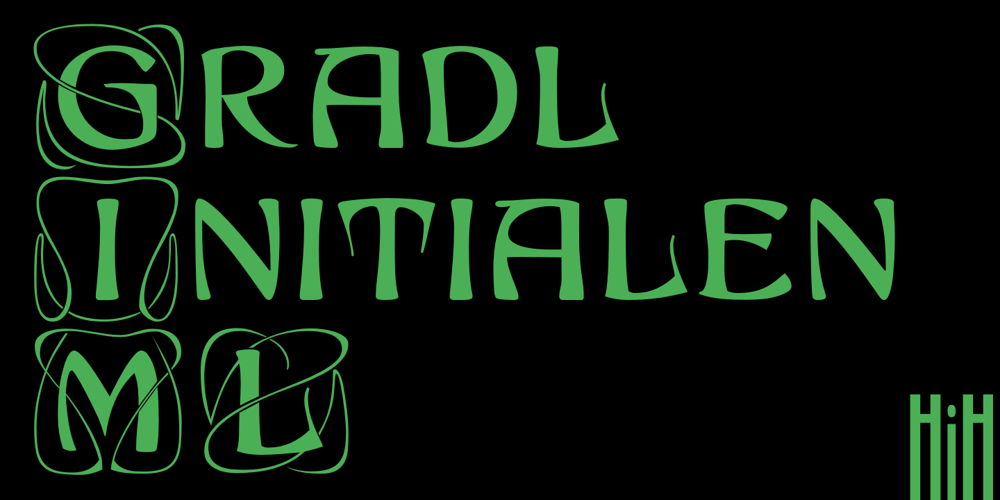
Gradl Initialen ML Font Family was designed by M.J. Gradl and published by HiH. Gradl Initialen ML contains 1 styles and family package options. Max Joseph Gradl designed Art Nouveau jewelry in Germany. At least some of his designs were produced by Theodor Fahrner of Pforzheim, Germany — one of the leading manufacturers of fine art jewelry on the Continent from 1855 to 1979. I don’t know if he designed for Fahrner exclusively, but every example I found was produced by that firm. I assume it was also the same M.J, who edited a book, Authentic Art Nouveau Stained Glass which was reissued by Dover and is still available. For an artist as accomplished as Gradl was, he is very tough to research. There just does not seem to have been much written about him. The jeweler is visible in most of his typeface designs. They exhibit a sculptural quality as if they were modeled in clay (or gold) rather than drawn on paper. His monograms, especially, reflect that quality. Those shown in plates 112 through 116 in Petzendorfer actually appear to have been designed specifically for fabricating in the form of gold or silver pendents. Of the initial letters that came out of Germany during this period, these by Gradl seem unusually open and lyrical. They seem to be dancing on the page, rather than sitting. Please note that Gradl designed only the decorated initials. All other characters supplied were extrapolated by HiH, including the accented initials. Orn.1 (unicode E004) is based on a jeweled gold clasp designed by Gradl (please check out Gallery Image on Myfonts.com). Also included are an art nouveau girl’s face, a swan and the face from Munch’s “Scream”, from scans of old printer’s ornaments. Gradl Initialen M represents a major extension of the original release, with the following changes: 1. Added glyphs for the 1250 Central Europe, the 1252 Turkish and the 1257 Baltic Code Pages. Added glyphs to complete standard 1252 Western Europe Code Page. Special glyphs relocated and assigned Unicode codepoints, some in Private Use area. Total of 341 glyphs. Both upper & lower case provided with appropriate accents. 2. 558 Kerning Pairs. 3. Added OpenType GSUB layout features: salt, dlig, ornm and kern. 4. Revised vertical metrics for improved cross-platform line spacing. 5. Refined various glyph outlines. 6. Alternative characters: 16 upper case letters (with gaps in surrounding decorations for accents above letter). 8. Four Ornaments: face1, face2, swan and orn1 (silhouette of Gradl clasp) The zip package includes two versions of the font at no extra charge. There is an OTF version which is in Open PS (Post Script Type 1) format and a TTF version which is in Open TT (True Type)format. Use whichever works best for your applications.